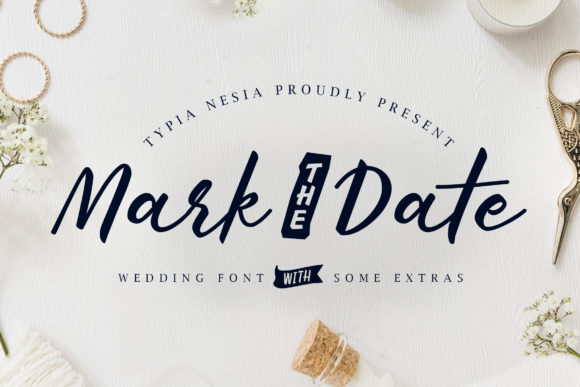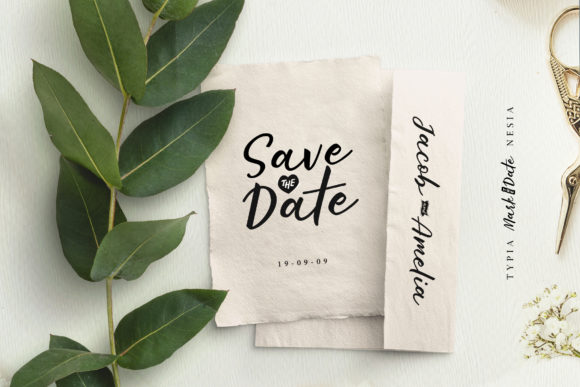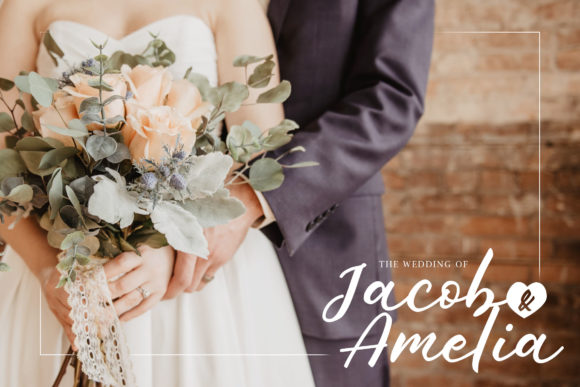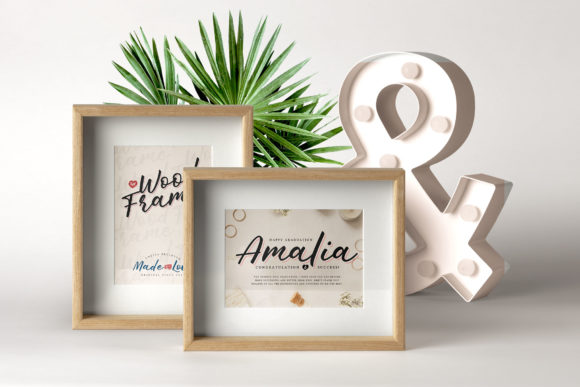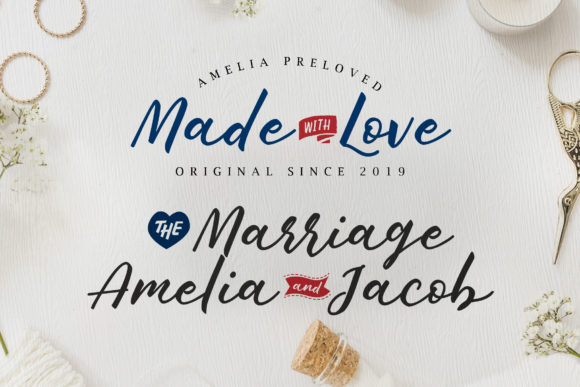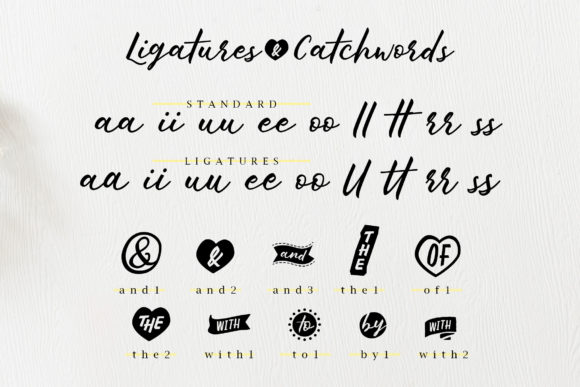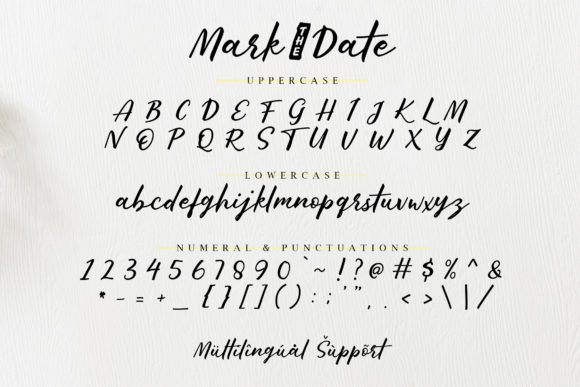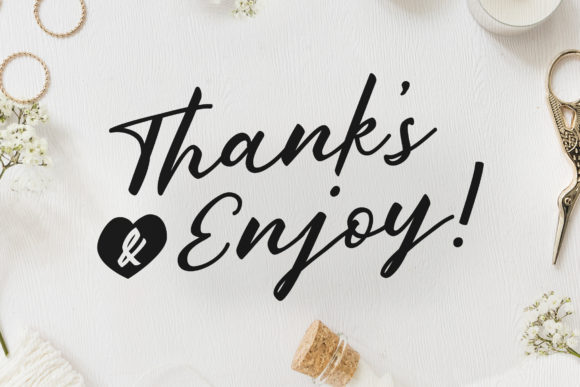
HomeScript FontsMark the Date Font Script Fonts Mark the Date Font FacebookXPinterestWhatsApp Mark the Date Font Poster 2 Mark the Date Font Poster 3 Mark the Date Font Poster 4 Mark the Date Font Poster 5 Mark the Date Font Poster 6 Mark the Date Font Poster 7 Mark the Date Font Poster 8 About Mark the Date Font Mark the Date is a fun script featuring unique flow and calligraphy style. Get inspired by its modern charm! DOWNLOAD NOW People also explored Consistance Font Bratayudha Font Blanket Font Jingle Joy Font Always Creepy Font Burning Daylight Font Healvetica MultiType Lines Narrow Font Animal Font 412 0 TagsMark the Date Font Previous articleRoyal Fighter FontNext articleBeautiful Moment Font LEAVE A REPLY Cancel reply Comment: Please enter your comment! Name:* Please enter your name here Email:* You have entered an incorrect email address! Please enter your email address here Website: Save my name, email, and website in this browser for the next time I comment. Personal Use Free Eric”s Personal Use Free Read more about this font Hello Sister Personal Use Free Read more about this font Girls Personal Use Free Read more about this font Astercla Personal Use Free Read more about this font BLOG Free Fonts Risk: Why Free Fonts Can Be Dangerous for Designers Free Fonts Risk: Why Free Fonts Can Be Dangerous for Designers Using free fonts is a common practice in web and graphic design. However, the... Where to Buy American Fonts Online in 2024 Exploring Font Trends The 10 Best Handwriting Fonts to Add Personality to Your Designs